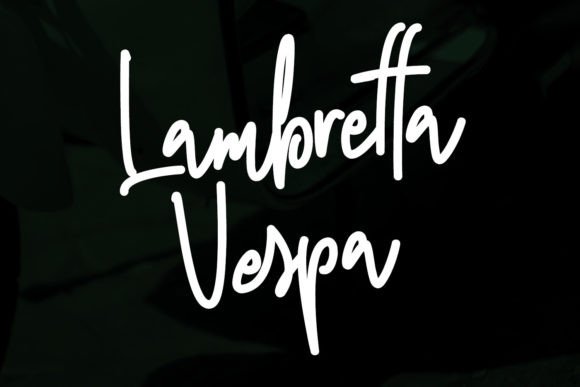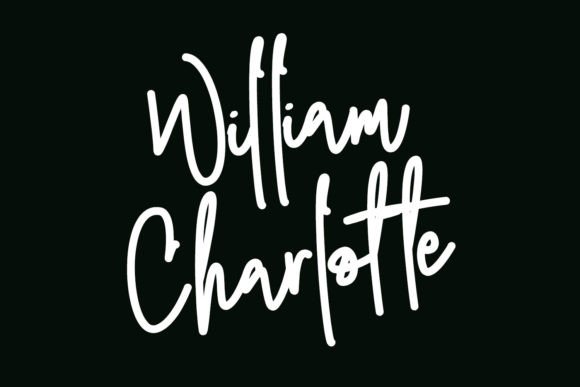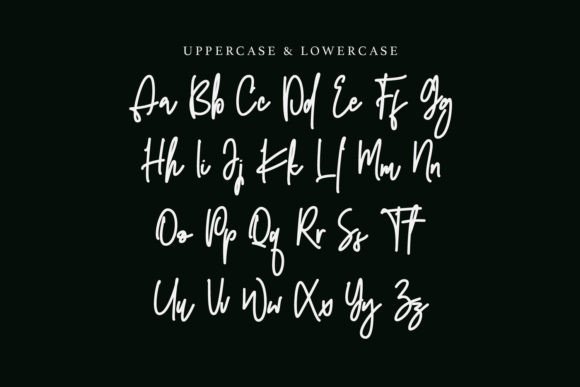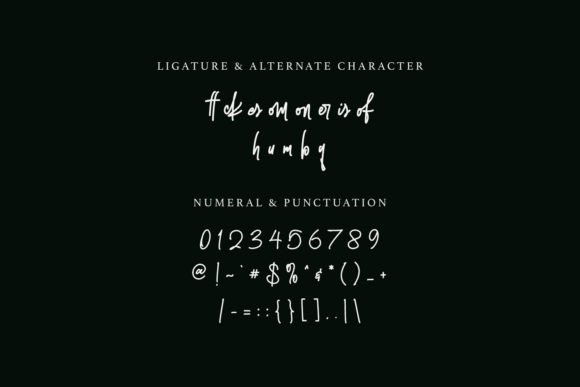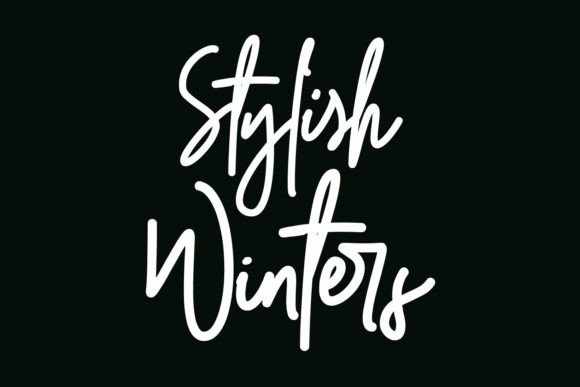
Introduction to Pantheres Font
Give your designs an authentic brush-handcrafted feel.
โPantheres Casual Signature Fontโ is perfectly suited to signature, stationery, logo, typography quotes, magazine, website headers, branding, and more .
Pantheres Font offers exceptional quality and versatility, making it a valuable addition to your design toolkit. Whether you’re creating for personal projects or commercial use, Pantheres Font delivers professional results.